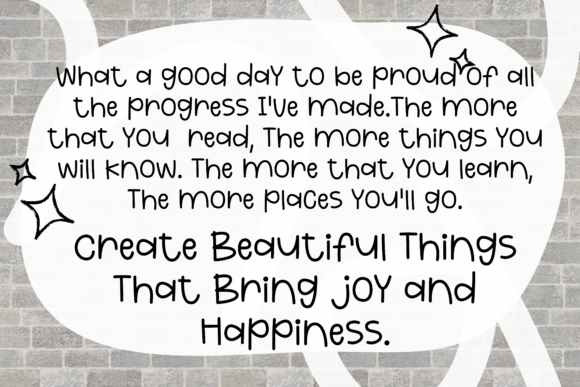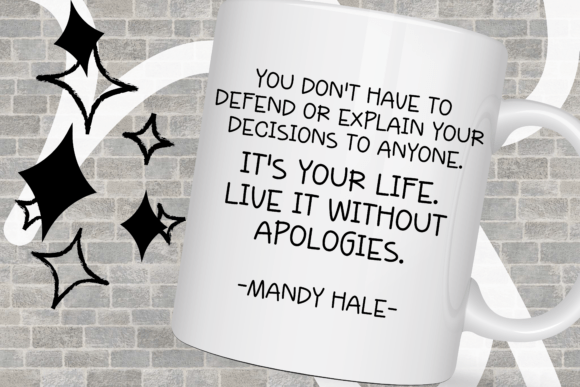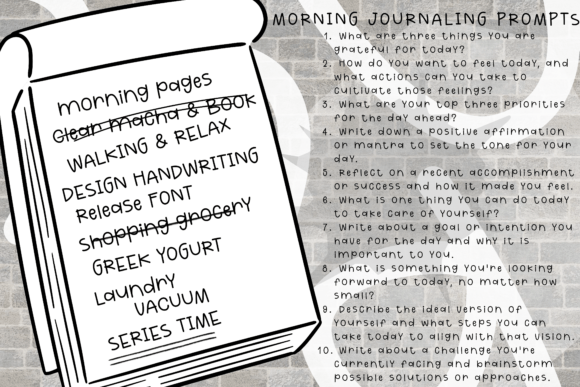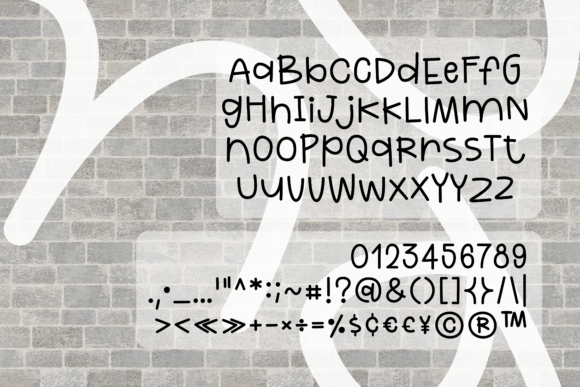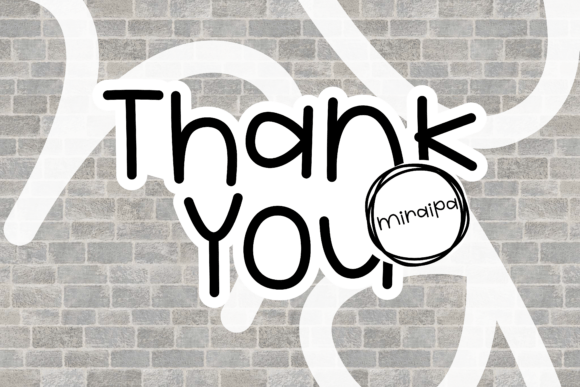
Introduction to Magnet Font
“Magnet” – a quirky and friendly handwritten sans-serif font.
Magnet is a fun and playful typeface designed to add a cute, cheerful touch to any creative project With its soft curves and approachable style, this font is perfect for everything from t-shirts and coffee mugs to hoodies, tote bags, and more .